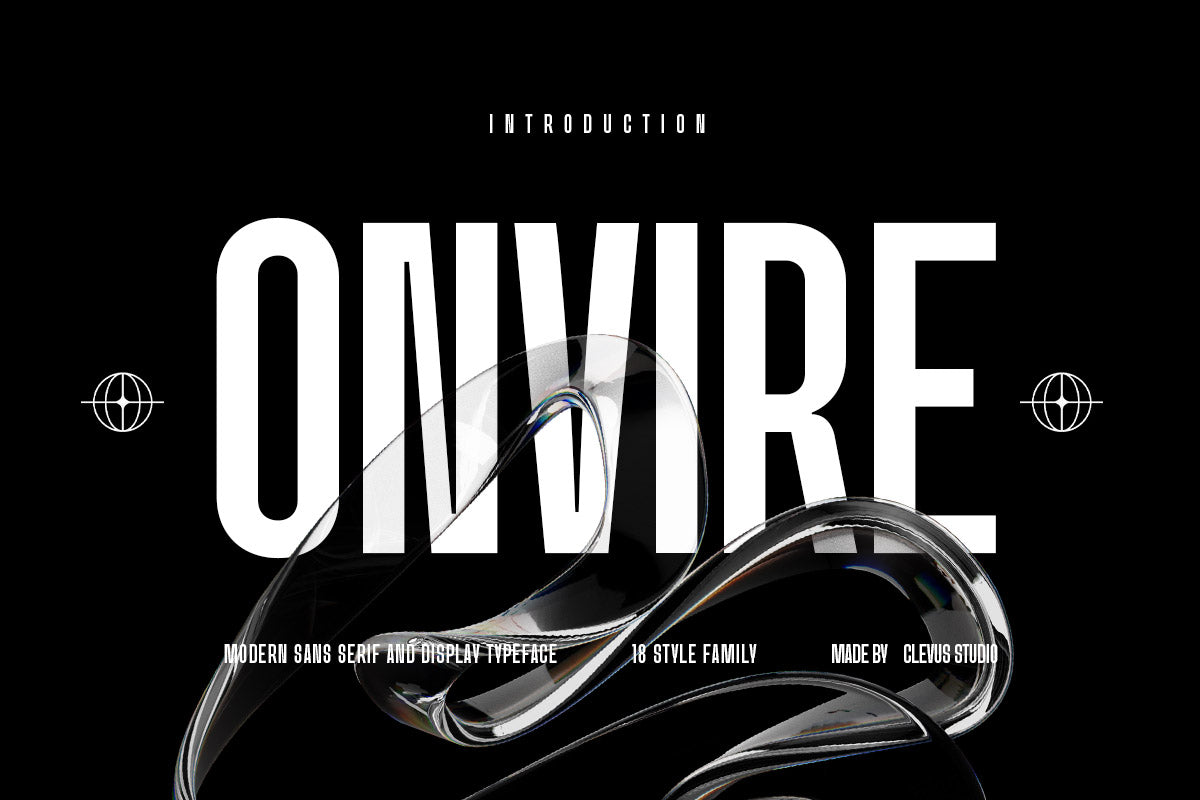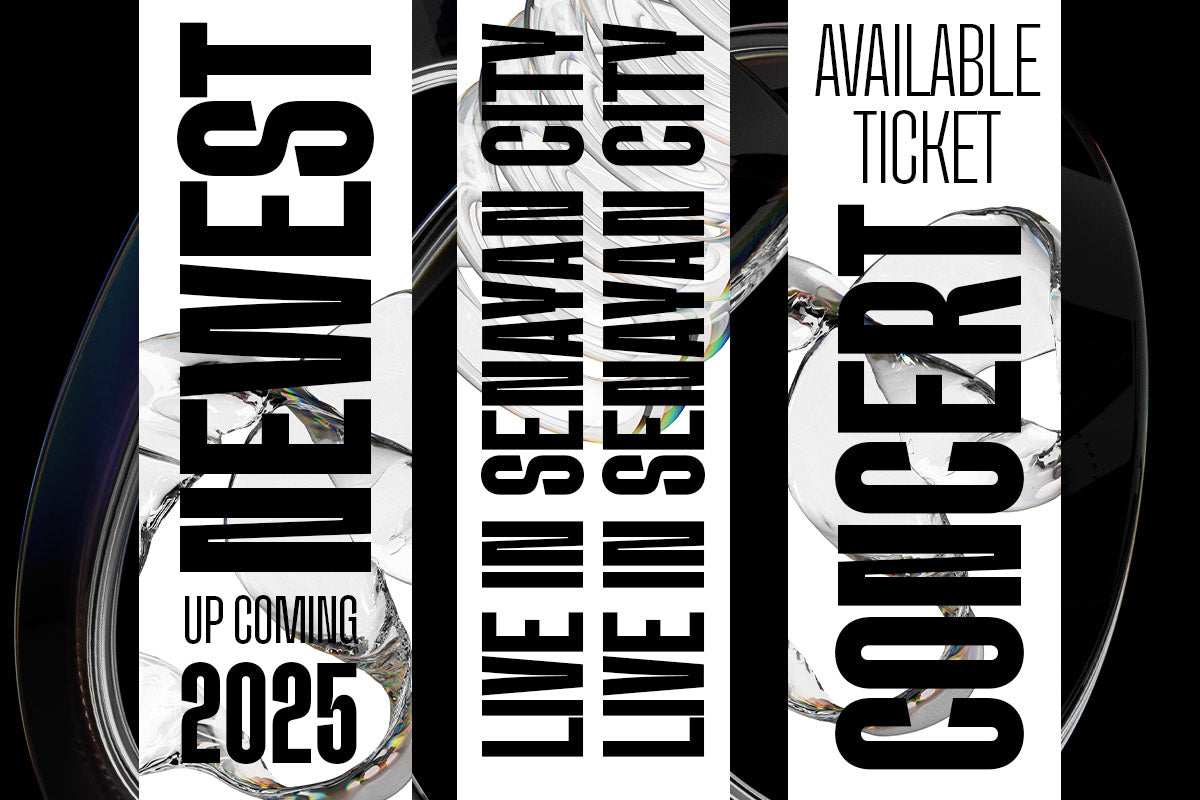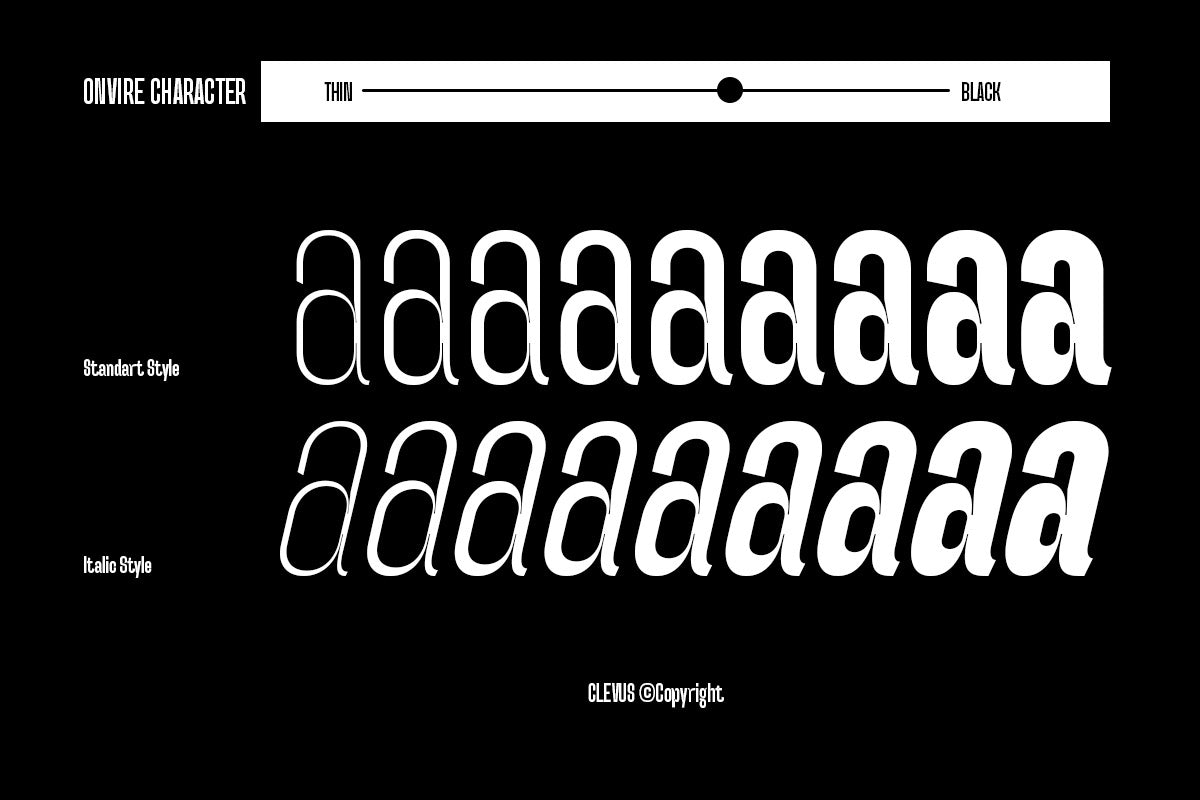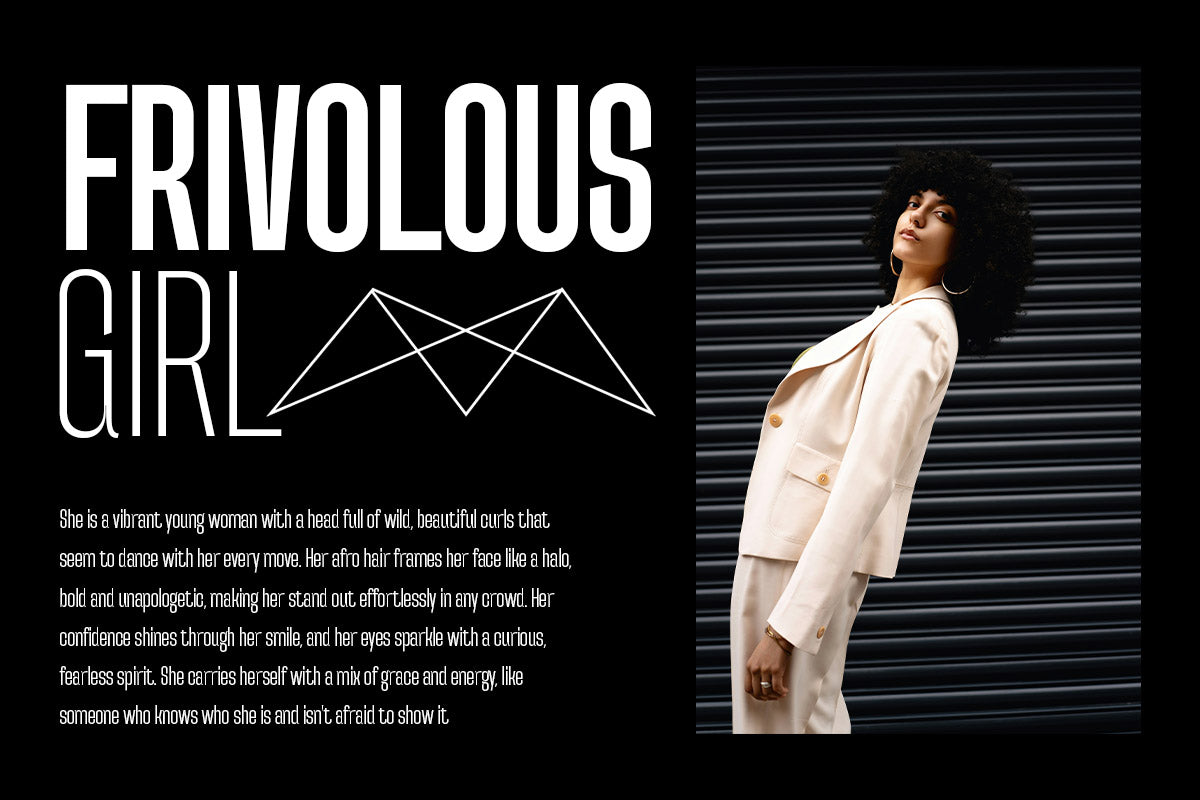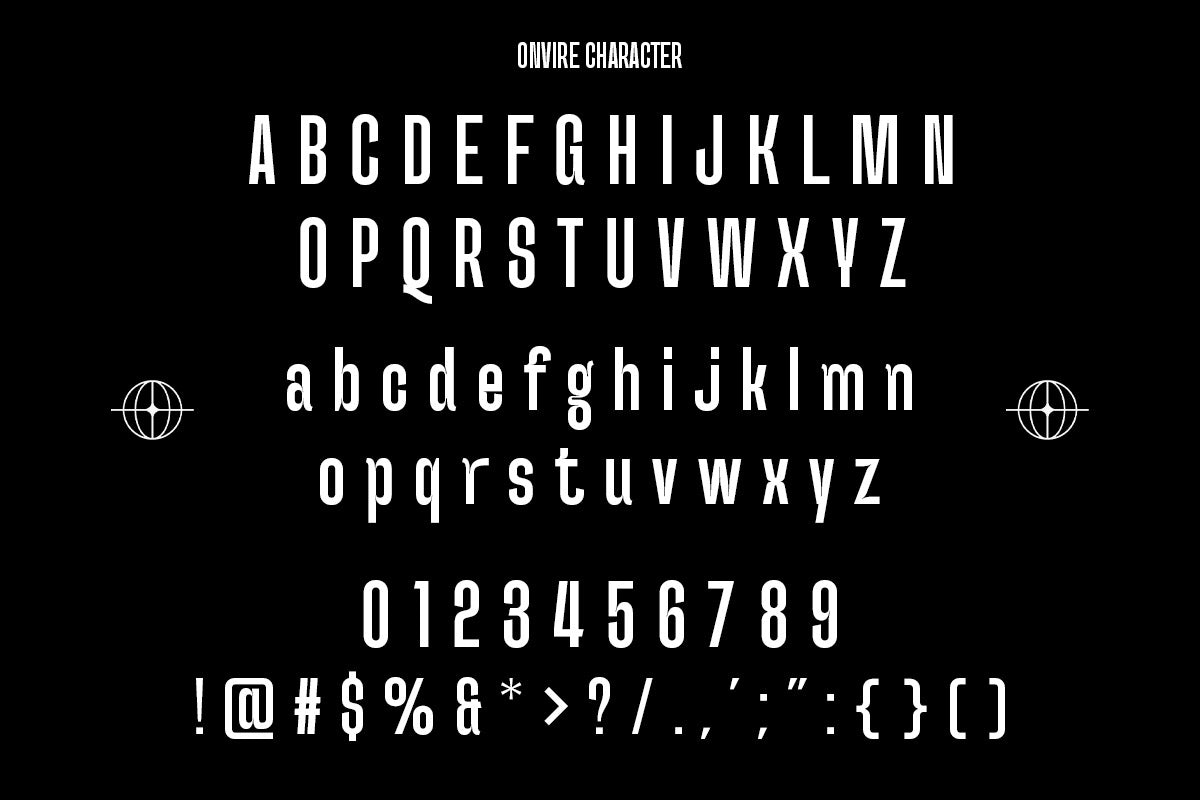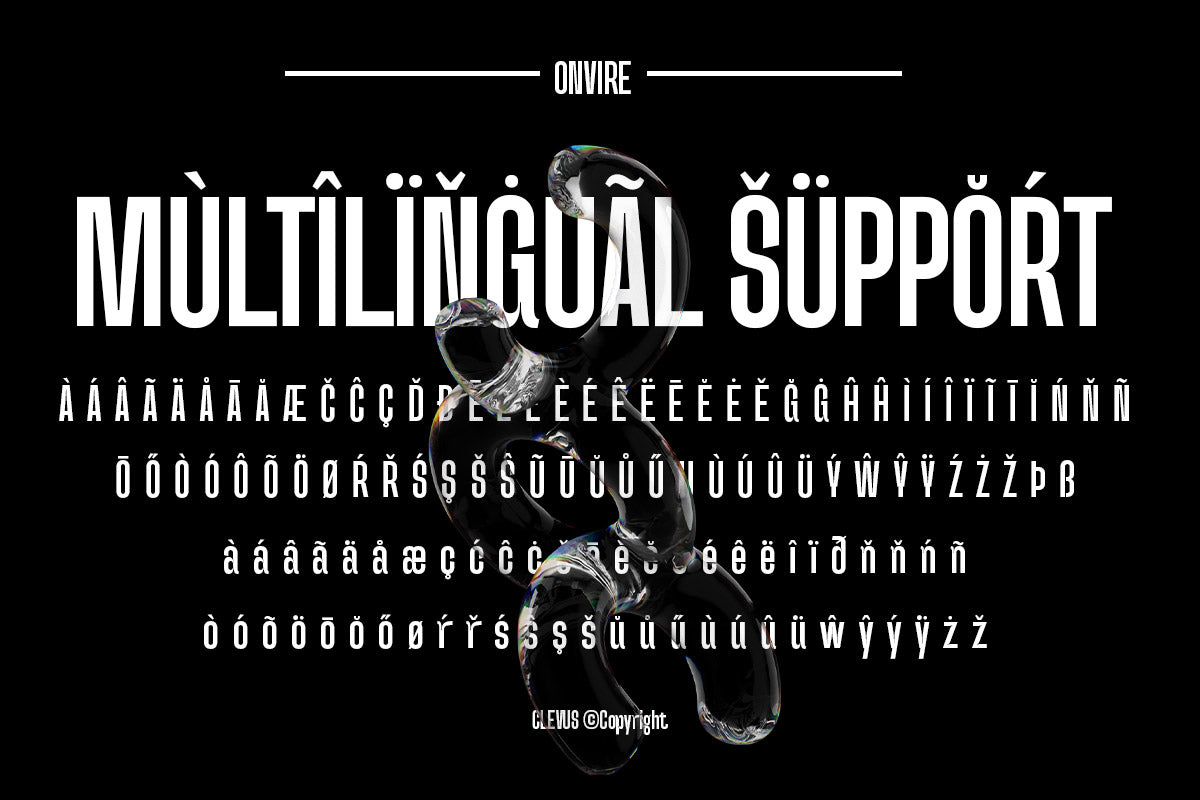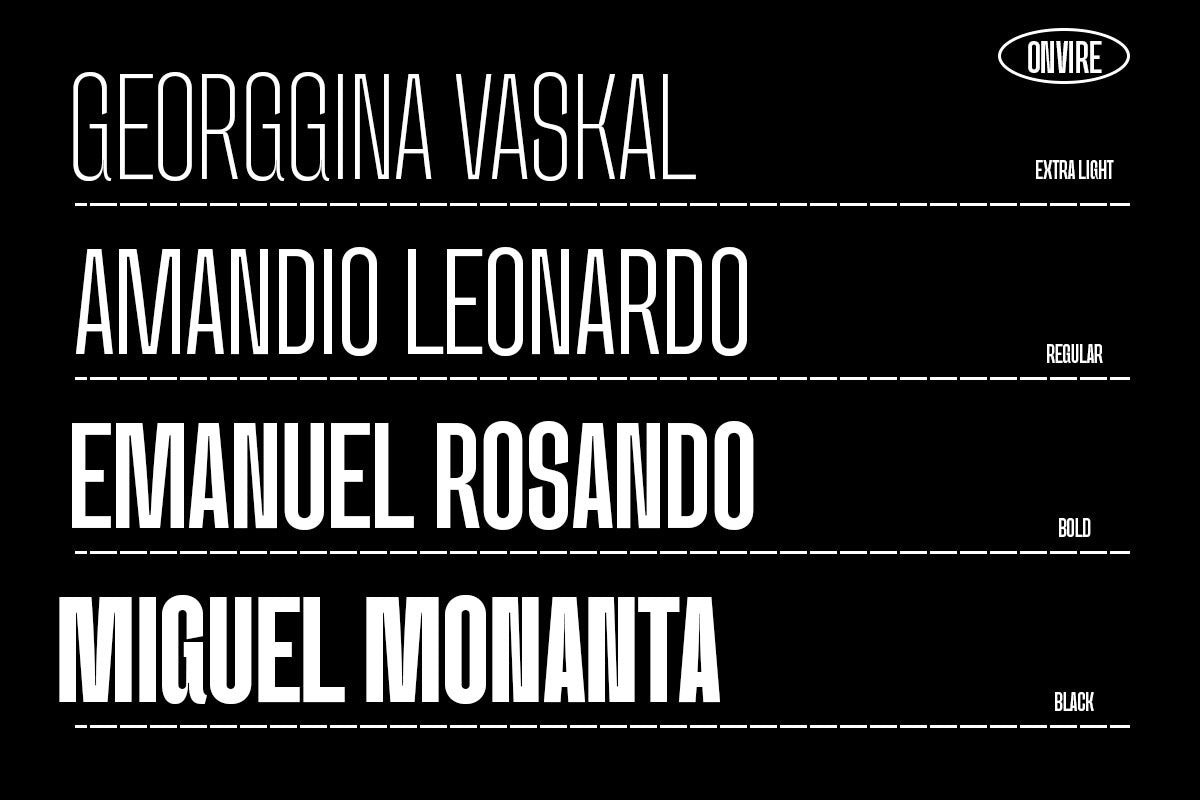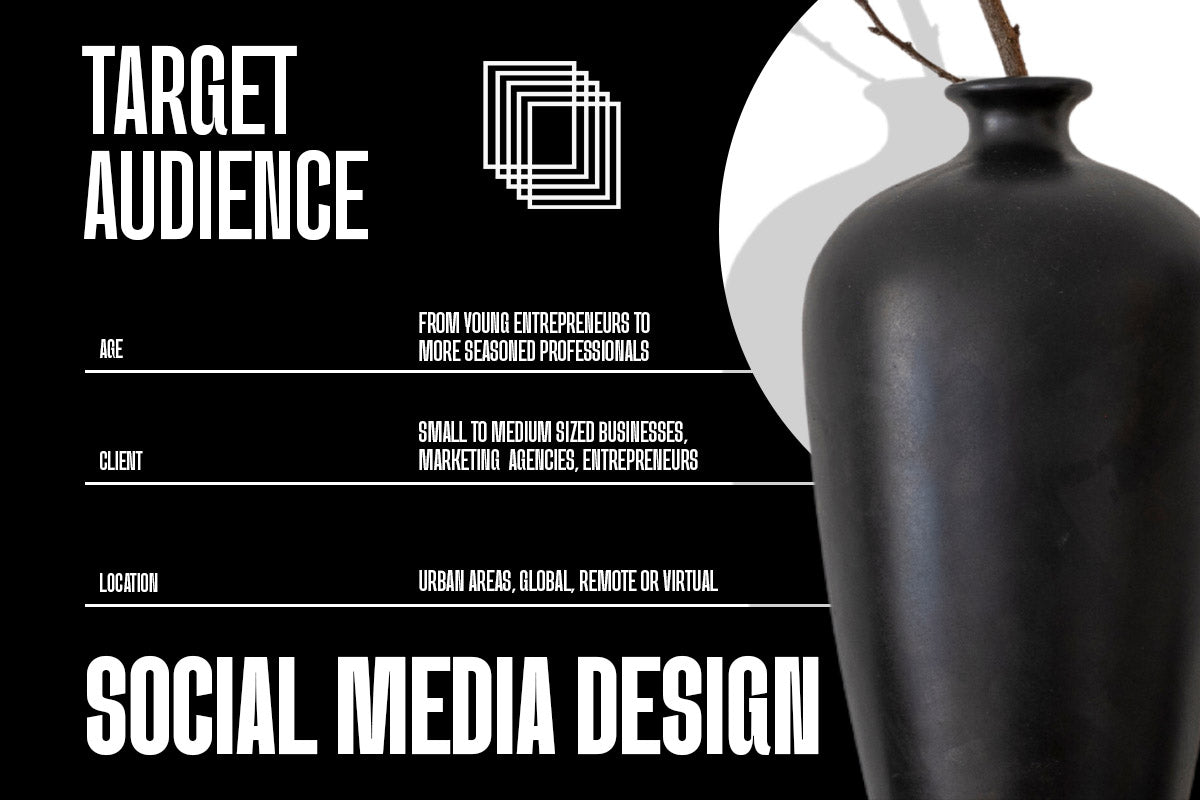
Proudly present Onvire Family Condensed Font from clevus, is a modern and bold condensed font inspired by classic grotesque typefaces with 18 weights.
Onvire equipped with several OpenType. Have 18 weight and 20 unique alternates ligatures. Comes with alternatives and ligatures, and helps to create stunning logos, quotes, posts, blog posts, branding projects, magazine imagery, wedding invitations, poster and much more.
- 18 Weights
- Letters, numbers, symbols, and punctuation
- 20 alternates and ligatures
- Multilingual Support
Language Support: Danish, English, Estonian, Filipino, Finnish, French, Friulian, Galician, German, Gusii, Indonesian, Irish, Italian, Luxembourgish, Norwegian Bokmål, Norwegian Nynorsk, Nyankole, Oromo, Portuguese, Romansh, Rombo, Spanish, Swedish, Swiss-German, Uzbek (Latin)
Onvire delivers a powerful impact with a sleek, contemporary style.